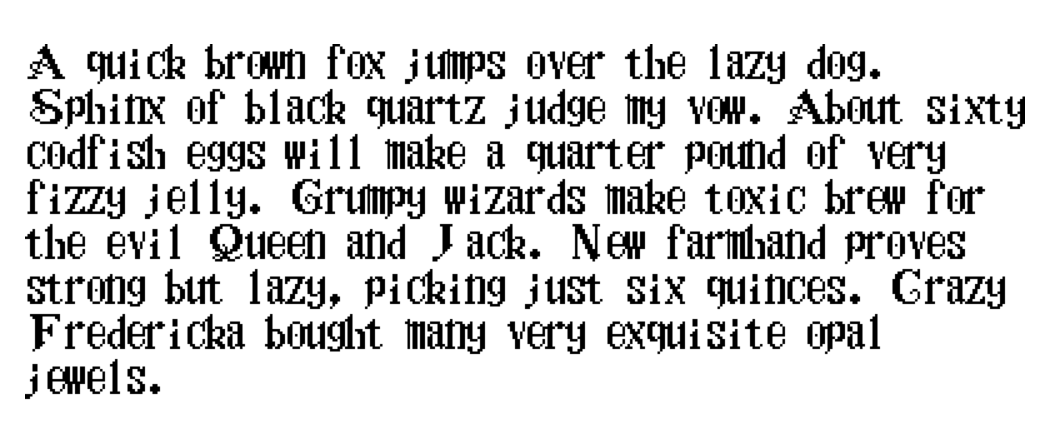
Recreation of the large pixel font from Jaleco's “Plus Alpha” (1989).
The uppercase characters are 16px wide, while the remaining characters are 8px wide.
Only the characters present in the game's tile set have been included.
A very stylish pixel font. I like it a lot! :^)
Is this the first game that has two different character widths for on screen text? I wonder how those games handle text strings (for 8 wide vs 16 wide characters)?
When I saw this pixel font yesterday, I thought it looked very nice at first glance. I was about to write a praising comment, then I changed my mind.